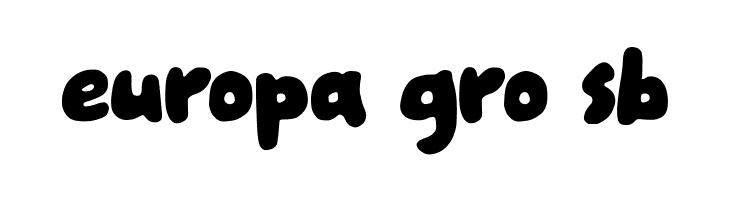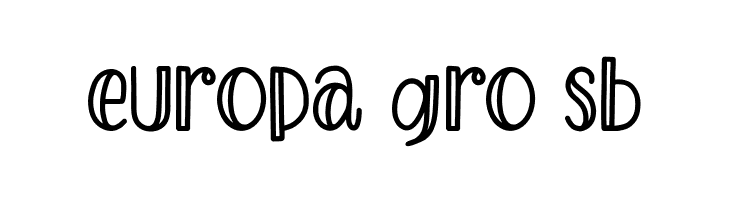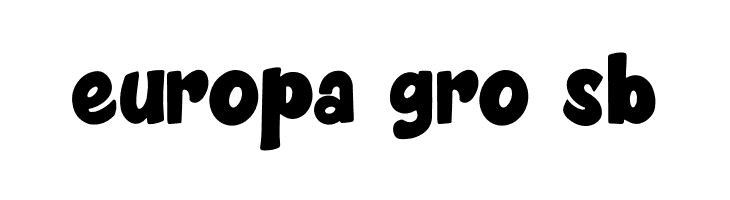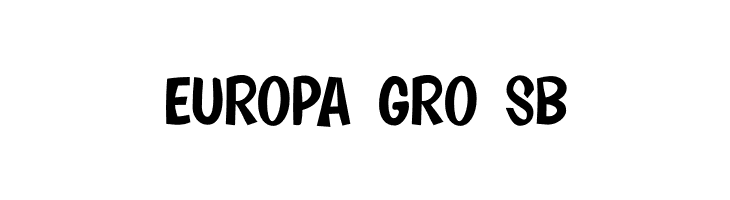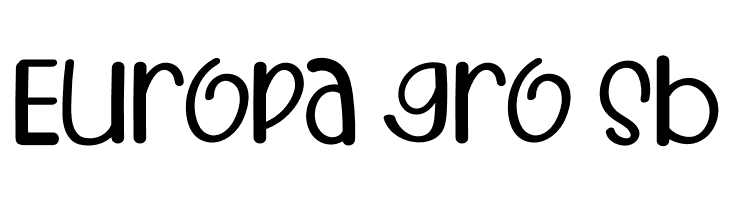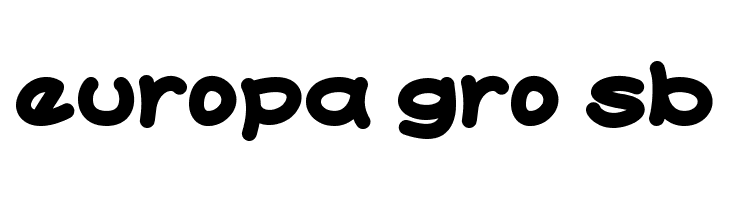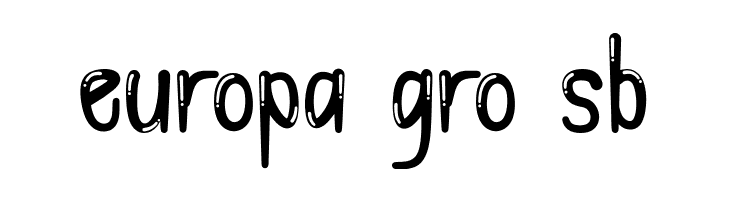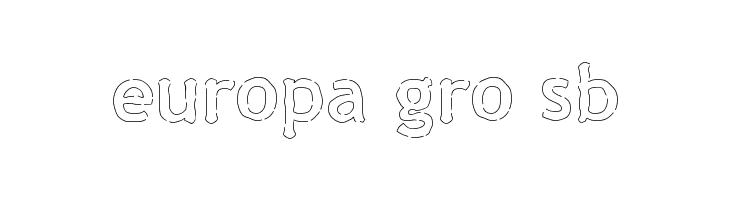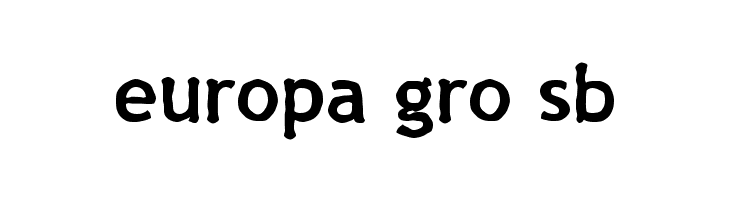
A bold, playful handwritten font with thick strokes and dynamic shapes.
An ornate and decorative font with flowing, cursive elements and varied stroke thickness.
An intricate and decorative font with elaborate swirls and flourishes.
A playful, bold font with cartoonish, hand-drawn letterforms.
A playful, bubble-inspired font with rounded, cartoonish characters.
A playful, bold, and cartoonish font with thick outlines and exaggerated curves.
A bold, cartoonish font with a playful, hand-drawn style.
A bold, playful 3D font with a cartoonish, decorative style.
A whimsical, cartoonish dingbat font featuring illustrated faces and totem symbols.
A bold, playful font with a cartoonish, dynamic style and thick outlines.
A playful, outlined font with a cartoonish, dynamic style.
A bold, playful font with rounded, cartoonish characters and tight spacing.
A bold, shadowed font with a playful, cartoonish style.
A playful, doodle-inspired font with bold, rounded characters and cartoonish expressions.
A playful, cartoonish font with a hand-drawn, emerging-from-ground style.
Cartoon character heads as letterforms in a decorative style.
A bold, playful, and hand-drawn font with a whimsical, cartoon-like style.
A playful, decorative font with cartoon-like characters and bold, rounded strokes.
A bold, playful font with chunky, cartoonish characters.
A bold, playful font with thick strokes and a dynamic, cartoonish style.
A bold, playful font with a cartoonish, hand-drawn style.
A playful, bold font with a cartoonish style and shadow effect.
A bold, playful font with whimsical, cartoonish letterforms.
A playful, bold, and cartoonish font with a hand-drawn, outlined style.
A bold, playful font with a hand-drawn, cartoonish style.
A bold, geometric font with a modern and futuristic design.